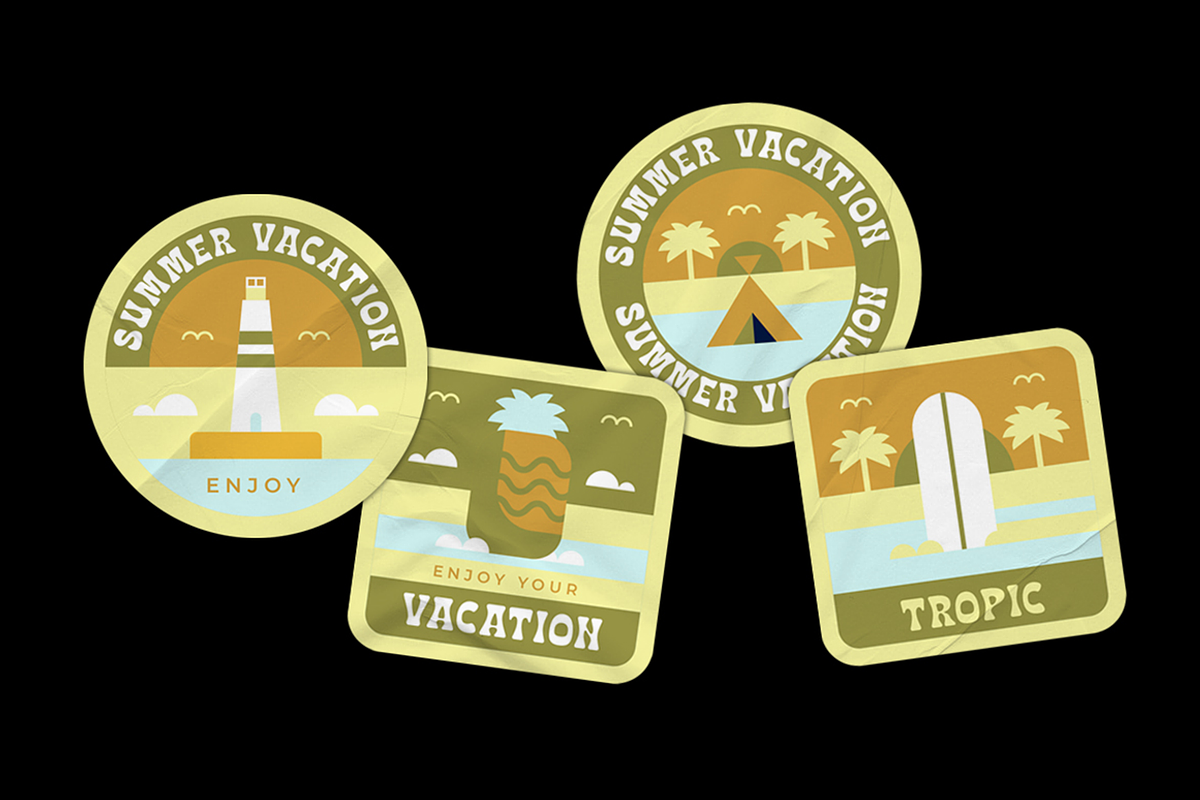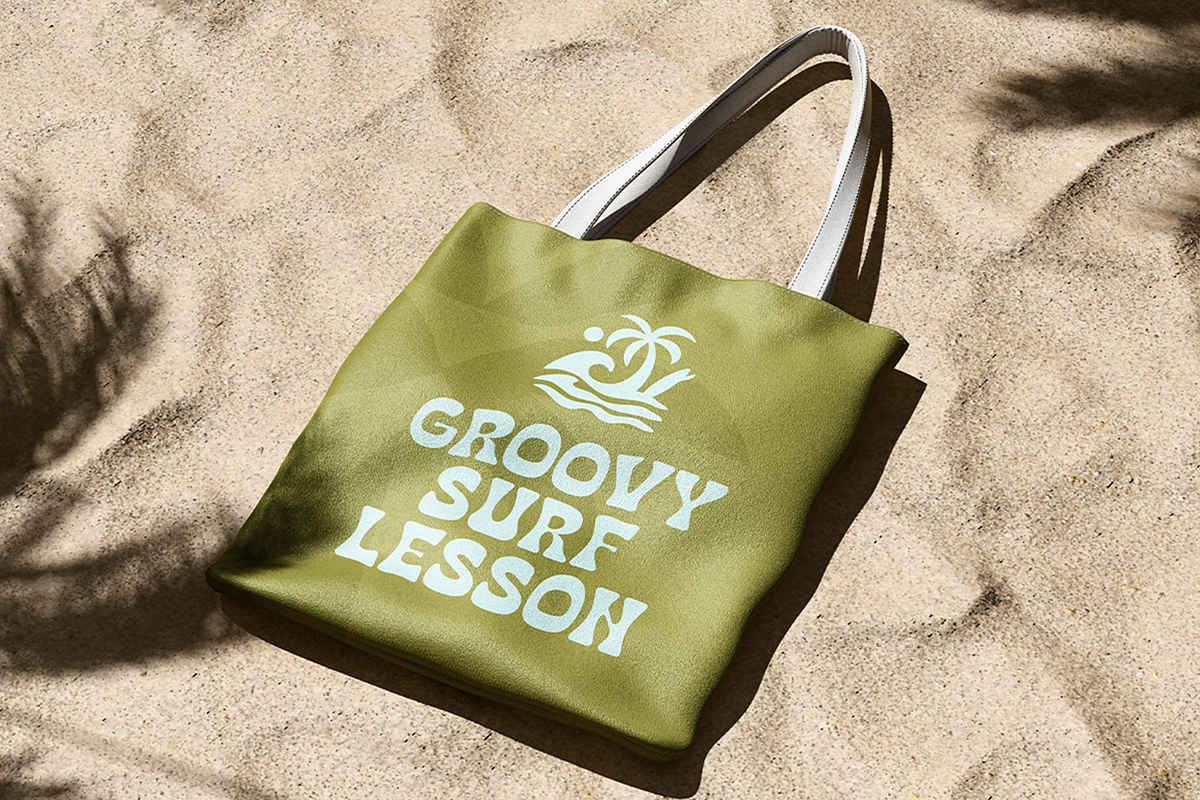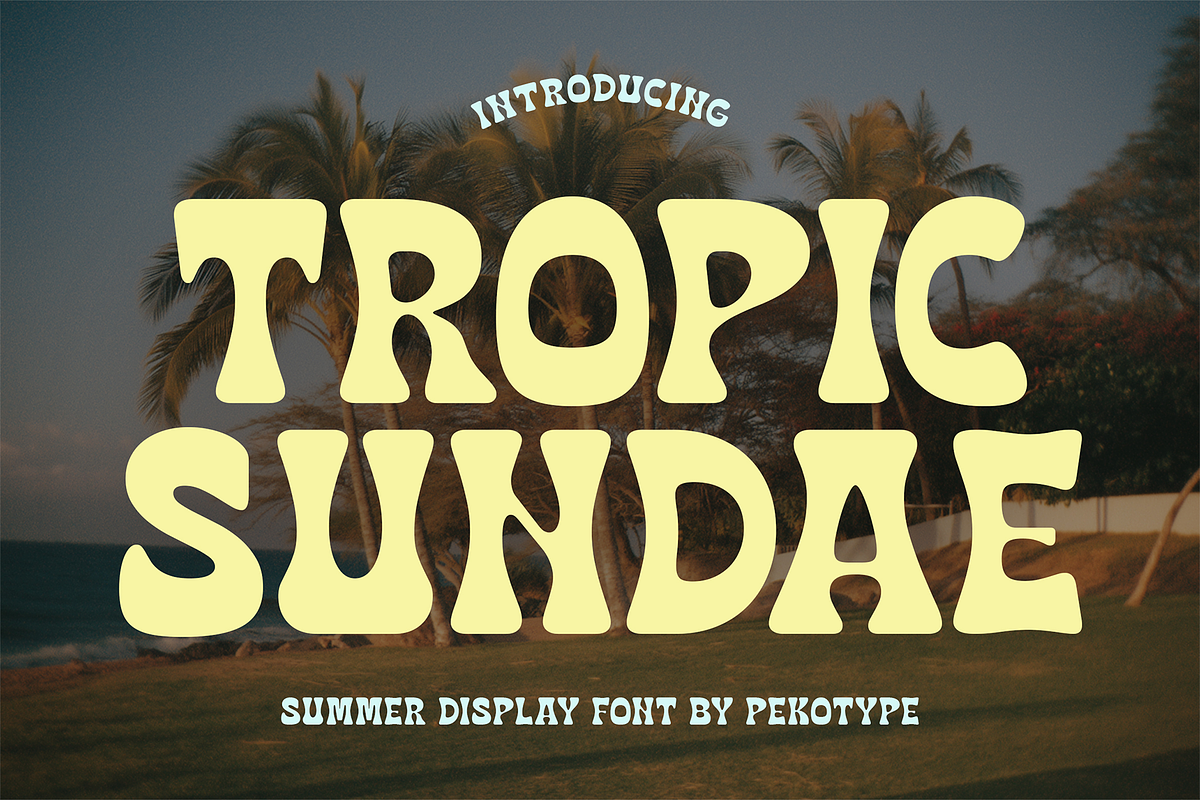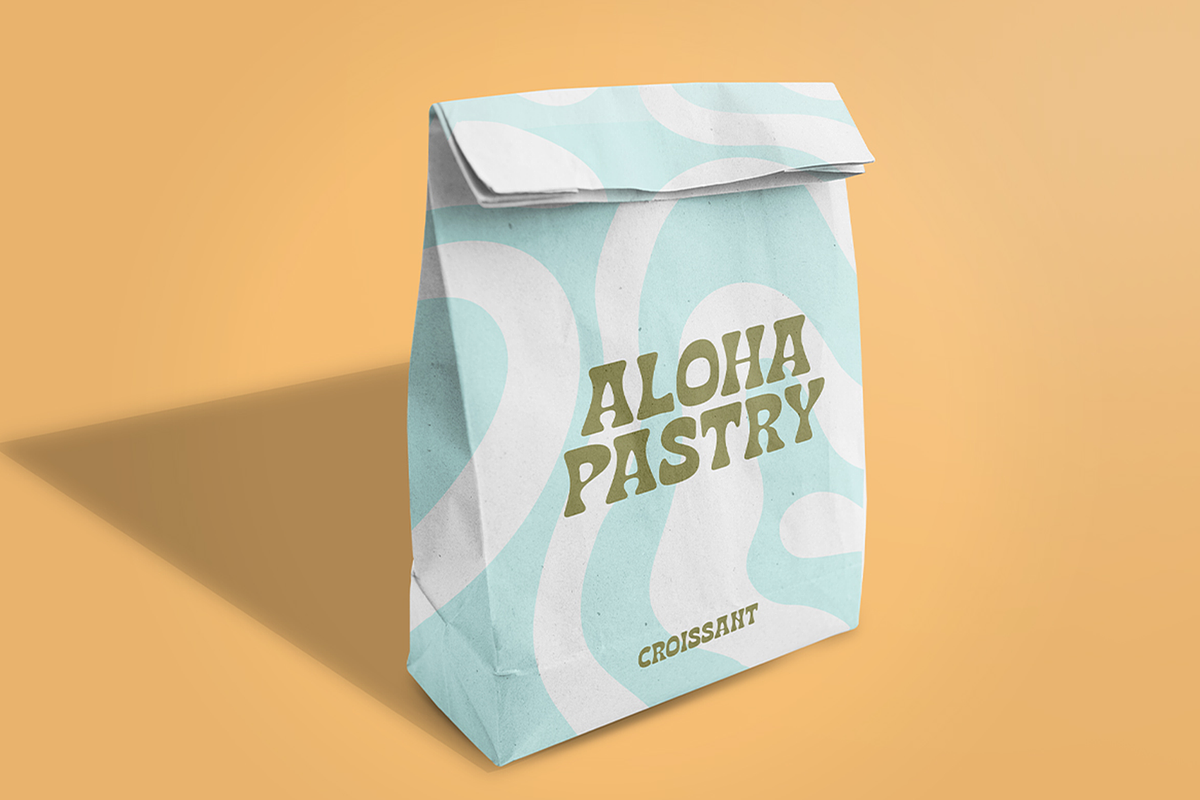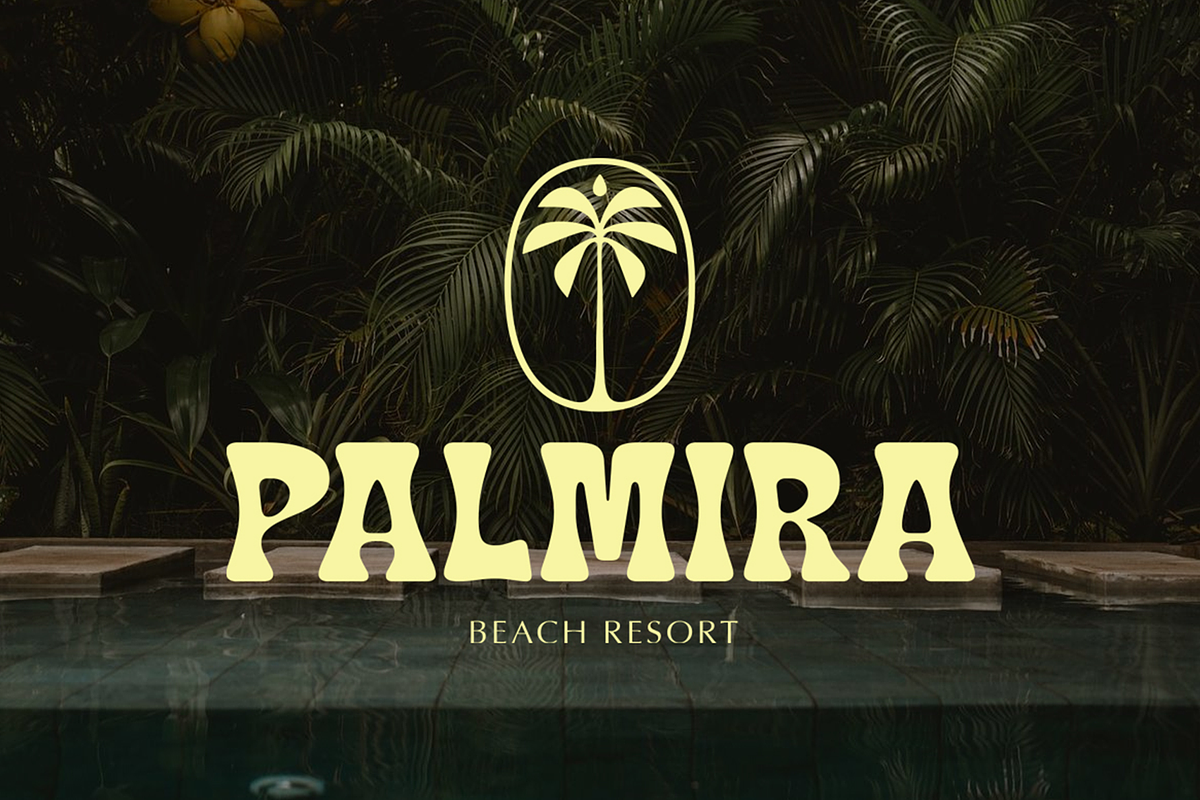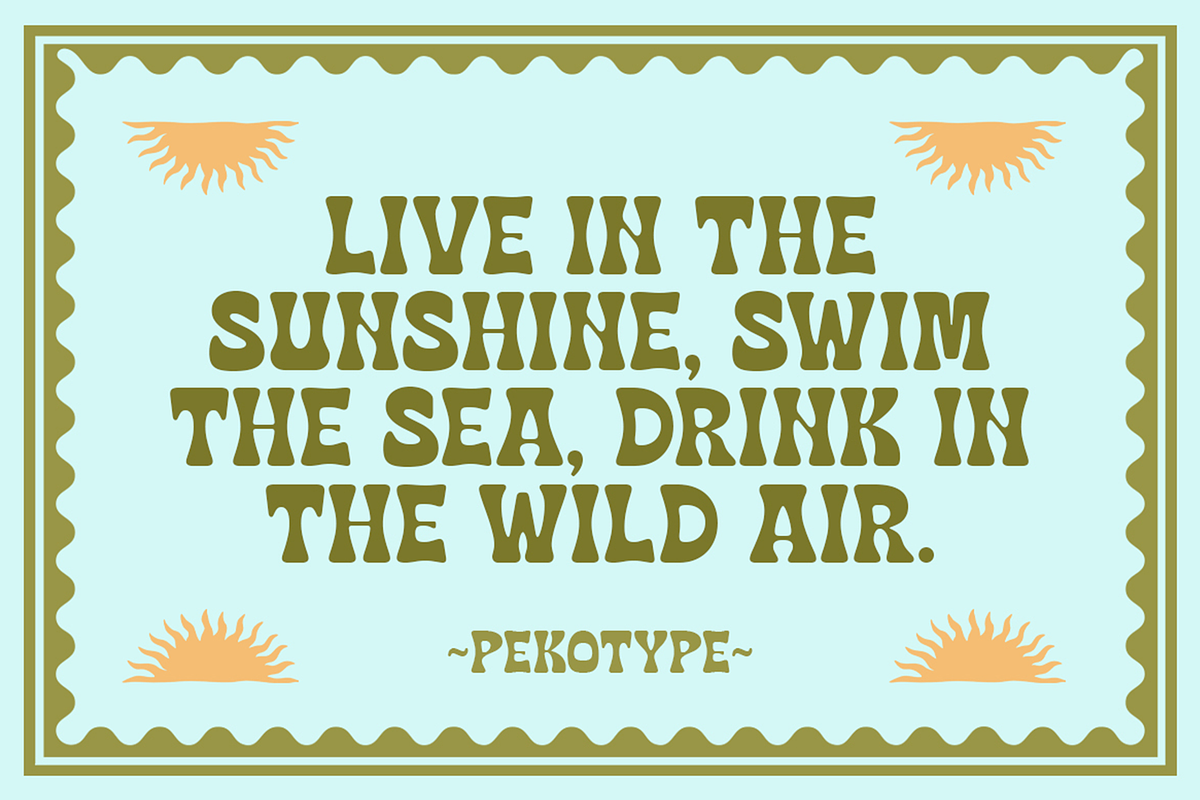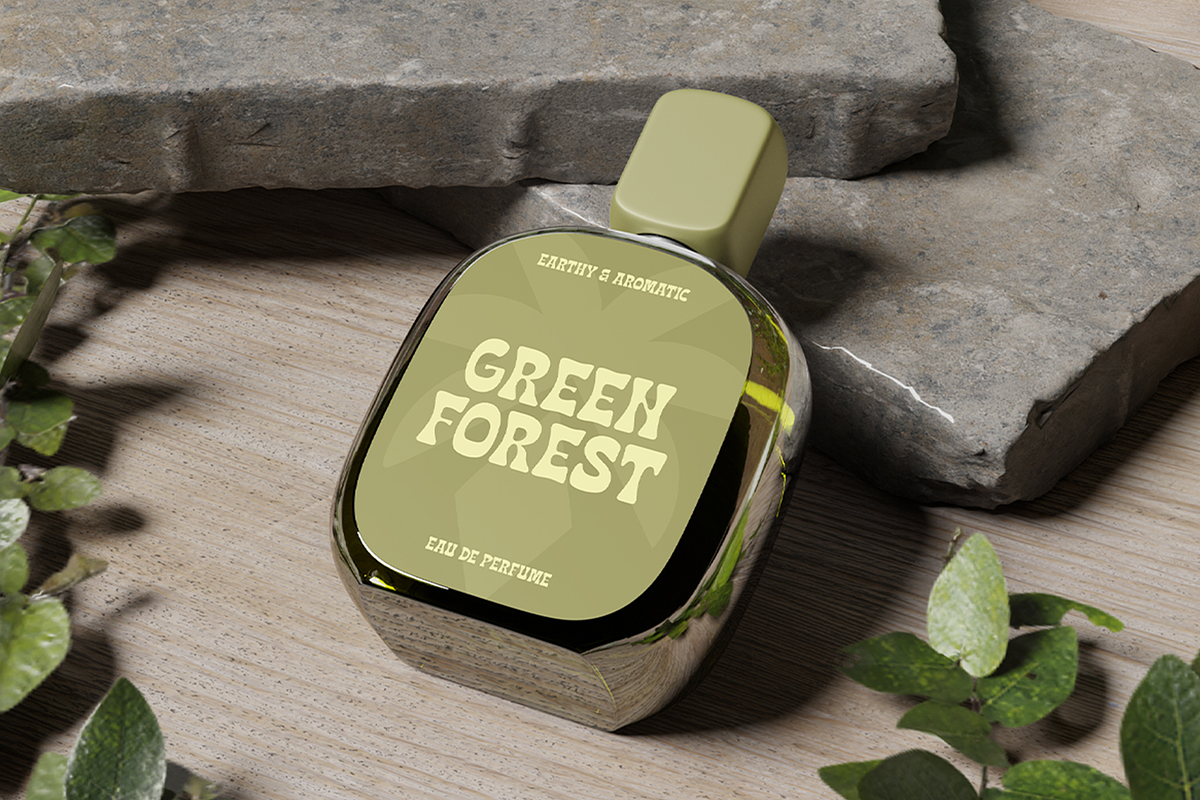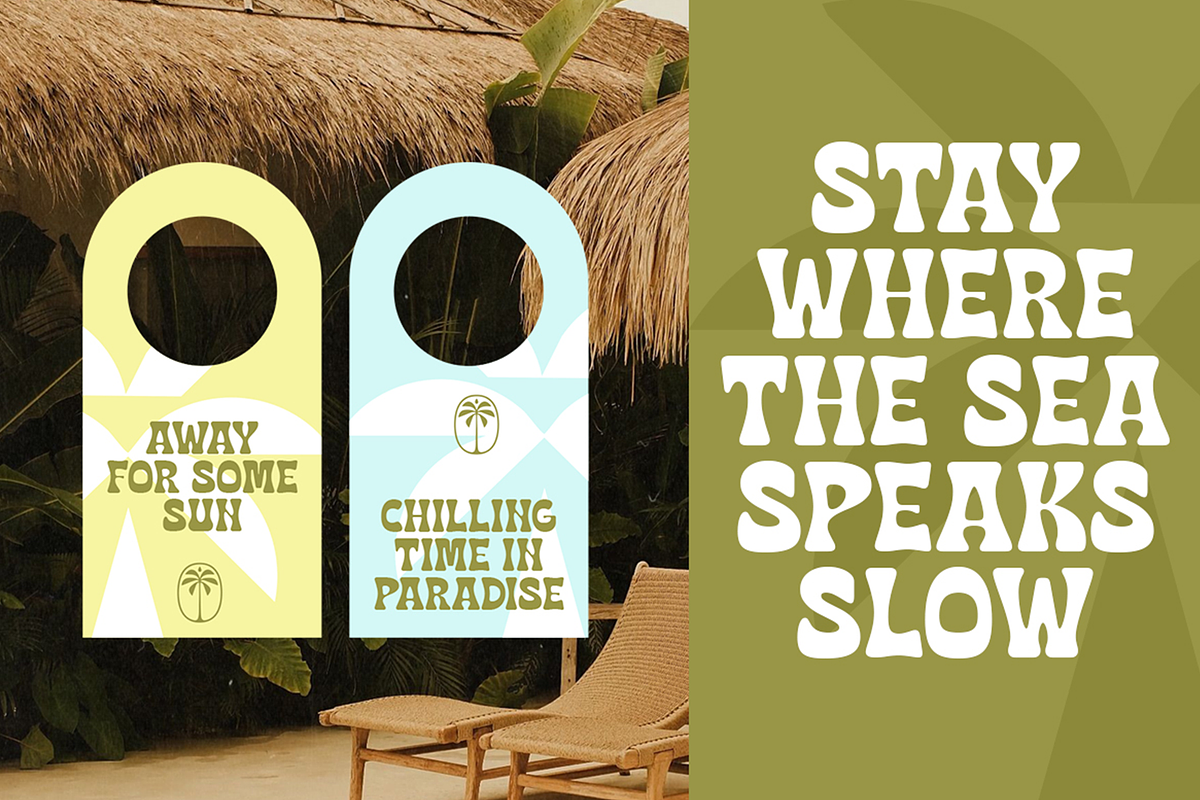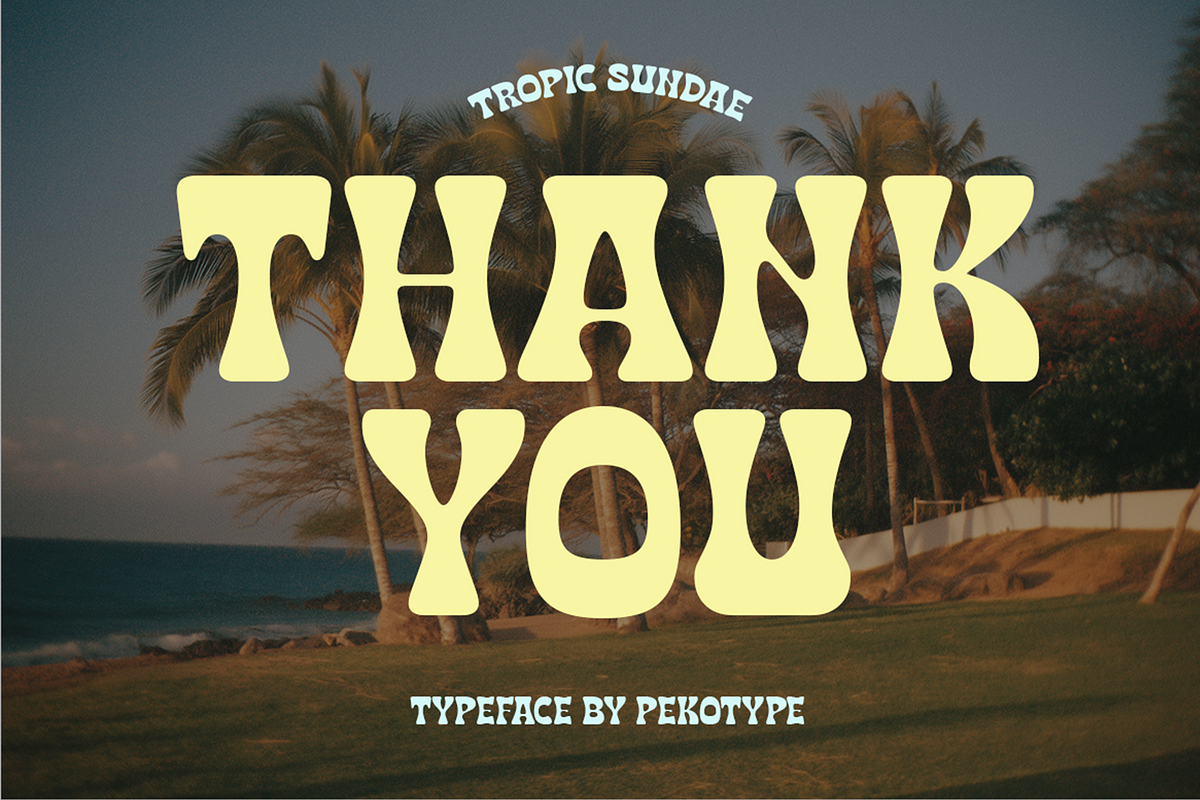
Tropic Sundae - Summer Display Font
TROPIC SUNDAE is a retro tropical display font inspired by sunny beach days, vintage travel posters, and laid-back summer vibes. With its bold curves and playful letterforms, this font brings a warm, fun, and nostalgic feel to any design while staying easy to read and full of personality.
Perfect for branding, logos, packaging, posters, signage, café menus, travel promotions, social media graphics, resort identities, and seasonal projects. Whether you're creating beach-themed visuals, tropical branding, or retro-inspired designs, TROPIC SUNDAE helps your work stand out with a cheerful and memorable look.